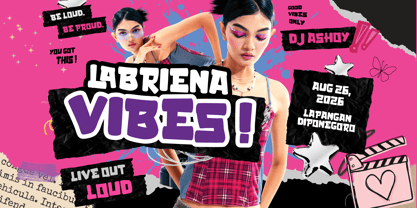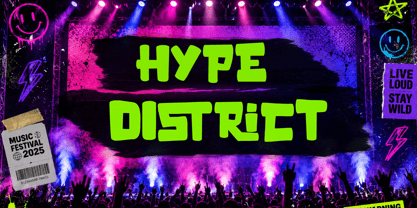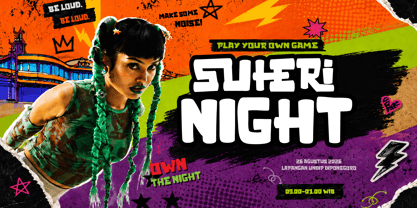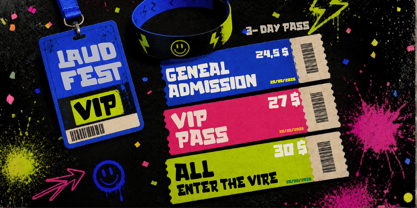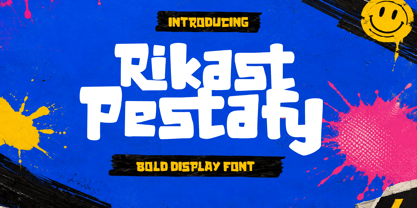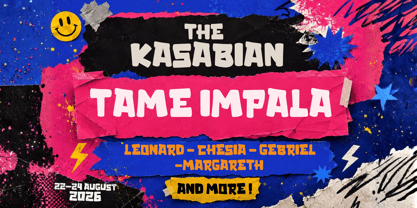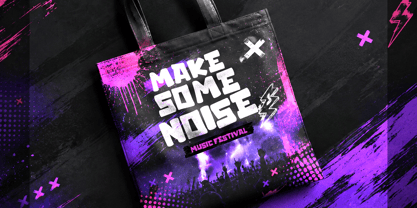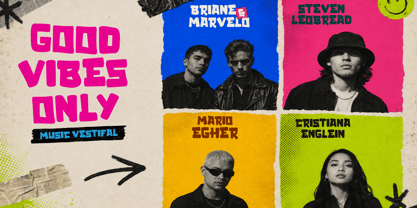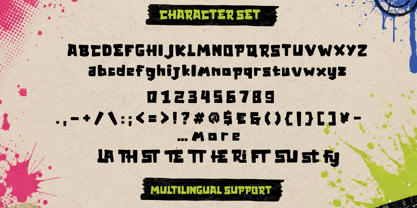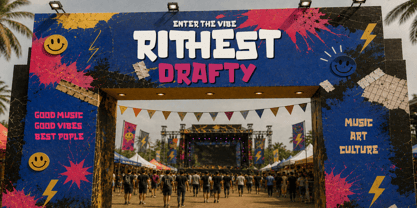
Rikast Pestafy - Bold Display Font is a bold, playful, and experimental display typeface created to bring strong visual energy to music, festival, concert, and creative event designs. Its chunky, heavy, and expressive letterforms create an eye-catching presence, making it ideal for powerful headlines with a fun, rebellious, youthful, and energetic personality.
This font is perfect for music festivals, concert posters, summer events, party promotions, artist lineups, stage branding, tour merchandise, event campaigns, social media promotions, and advertising projects that require high visual impact. Its distinctive character works especially well for designs that need to feel bold, modern, unconventional, and instantly attention-grabbing.
Featuring uppercase, lowercase, numerals, punctuation, and multilingual support, Rikast Pestafy offers versatility for professional creative projects. An excellent choice for graphic designers, event organizers, music brands, creative agencies, and content creators looking for a memorable display font with a strong visual personality.
- Multilingual Support: Fully supports 85+ languages, including:
Afrikaans, Albanian, Asu, Basque, Bemba, Bena, Breton, Catalan, Chiga, Cornish, Croatian, Czech, Danish, Dutch, Embu, English, Esperanto, Estonian, Filipino, Finnish, French, Friulian, Galician, Gusii, Hungarian, Indonesian, Irish, Italian, Kabuverdianu, Kalenjin, Kamba, Kikuyu, Kinyarwanda, Latvian, Lithuanian, Lower Sorbian, Luo, Luxembourgish, Luyia, Machame, Makhuwa-Meetto, Makonde, Malagasy, Maltese, Manx, Meru, Morisyen, North Ndebele, Norwegian Bokmål, Norwegian Nynorsk, Nyankole, Oromo, Polish, Portuguese, Quechua, Romanian, Romansh, Rombo, Rundi, Rwa, Samburu, Sango, Sangu, Scottish Gaelic, Sena, Serbian, Shambala, Shona, Slovak, Slovenian, Soga, Somali, Spanish, Swahili, Swedish, Swiss German, Taita, Teso, Turkish, Upper Sorbian, Uzbek (Latin), Volapük, Vunjo, Walser, Zulu.